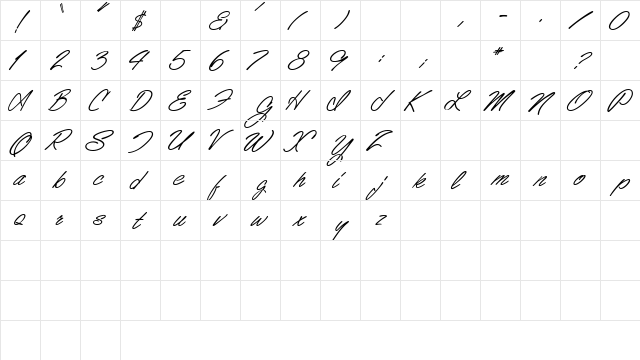
1 Pencil Stroke DNA Regular
Design Context for 1 Pencil Stroke DNA Typeface
1 Pencil Stroke DNA takes a measured approach to typography — its balanced proportions and neutral character make it a reliable workhorse for both digital and print work.